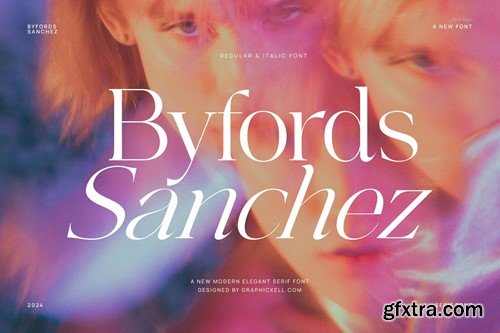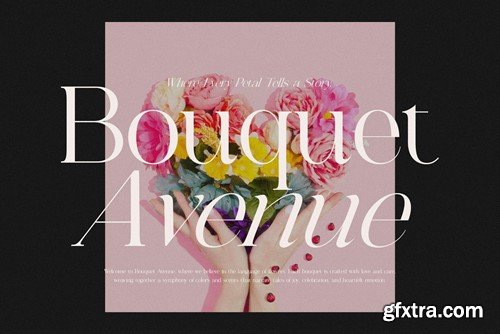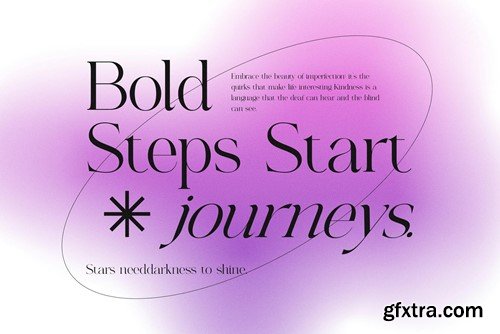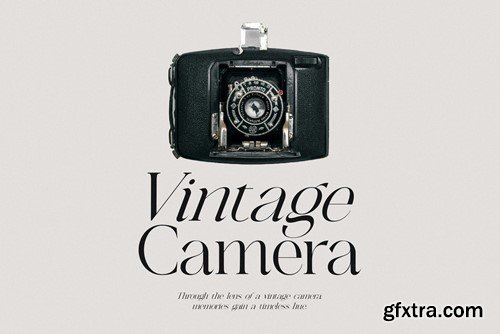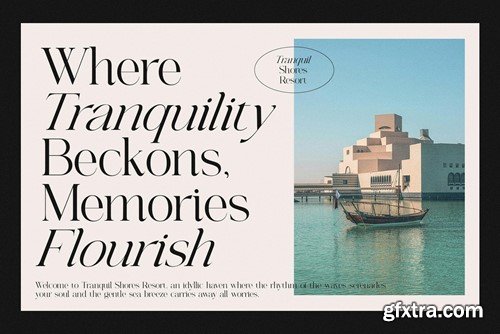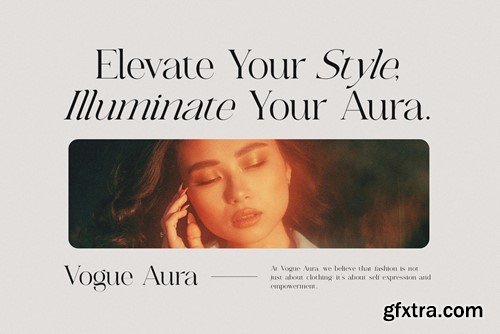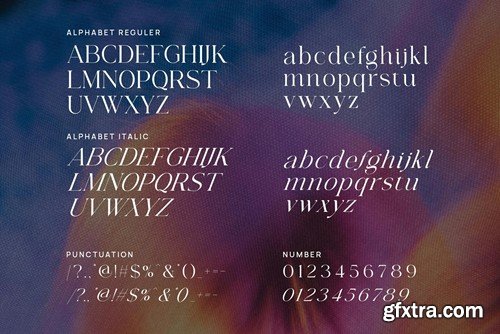
Byfords Sanchez Elegant Serif Font is a new modern serif font that comes with a cool impression. The excellent blend of regular and italic styles creates a striking look. The chic letterforms make the counterstrokes are very noticeable. Even though the line thickness is not the main attractiveness, it adds a touch of elegance. The smooth curves create a flawless appearance. While the bold impression can be seen from the firm lines. It cannot be denied that Byfords Sanchez Elegant Serif Font is very captivating so that it can easily grab people’s attention. Therefore, this font is appropriate for formal work projects. It can be for magazines, newspapers, journals, book titles, etc. With a high level of readability, this font can convey the message well. So, purchasing it will not make you regret it. Because of the flexible use, it can meet various purposes. Every graphic designer like you must have this elegant serif font. What's Included: Recommended using Adobe Illustrator or Adobe Photoshop. Wish you enjoy our font and if you have any questions, don't hesitate to drop a message & I'm happy to help :)